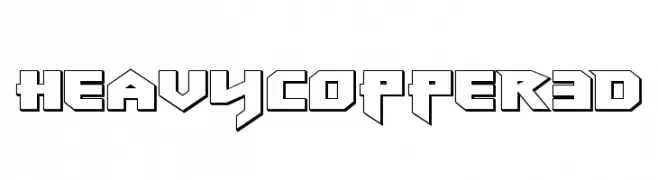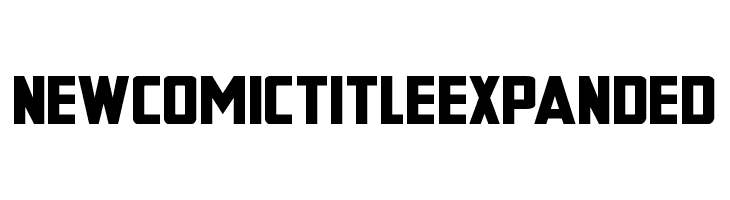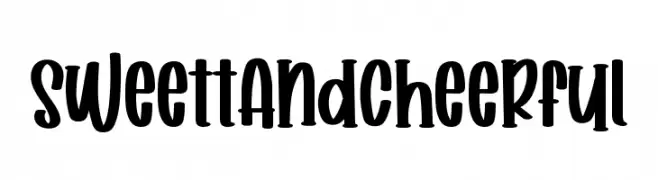
A bold, rounded typeface with a playful and friendly style.
A playful, dripping style font with a whimsical and decorative appearance.
A playful, bold font with rounded, whimsical characters.
A playful, bold font with rounded, bubbly characters.
A bold, expressive handwritten font with playful curves and a modern style.
A bold, playful font with rounded, hand-drawn style characters.
A playful, bold font with rounded, thick strokes and a whimsical touch.
A bold, bubbly font with a playful and whimsical style.
A bold, modern font with a unique diagonal stripe pattern.
A modern, monospaced font with a clean and precise design.
A clean, geometric monospaced font ideal for technical and modern applications.
A bold, monospaced font with geometric lines and uniform character width.
A bold, brush-style font with dynamic, energetic strokes.
A bold, handwritten font with dynamic strokes and a lively, personal touch.
A lively handwritten script font with fluid, connected strokes.
A bold, expressive handwritten font with dynamic strokes and a modern calligraphy feel.
A playful, hand-drawn script font with bold, sweeping strokes.
A playful, wavy line font with a hand-drawn, organic style.
A bold, geometric font with dynamic, overlapping lines and a three-dimensional look.
A playful, splattered ink-style font with irregular edges.
A bold, geometric font with a three-dimensional effect and angular design.
A bold, decorative font with a textured pattern overlay, perfect for impactful display use.
A playful decorative font featuring unique animal face illustrations for each character.
A decorative font featuring abstract geometric shapes and symbols.
A bold, stencil-like font with characters inside black circles.
A bold, decorative font with a 3D effect and textured circle pattern.
A whimsical, nature-inspired font with decorative uppercase and clean, handwritten lowercase letters.
A whimsical, nature-inspired italic font with leaf-like details.
A flowing, cursive script font with elegant, interconnected characters.
A playful, hand-drawn font with rounded, informal characters.
Bold, outlined collegiate style ideal for impactful designs.
Bold, collegiate-style font with strong, blocky characters.
A bold, decorative font with characters in splatter-like shapes, offering a playful and artistic style.
常见问题 — 最新字体
现在大家都在用哪些新字体?
流行变化很快,但极简无衬线与个性鲜明的展示体当前更受欢迎, 特别适合移动端内容与现代品牌风格。
有哪些值得尝试的 5 款新字体?
近期热门包括 Frostine Snow - Personal Use, Frostine Snow Display - PUL, Mantis Rumble_PersonalUseOnly, SOLARY and Dunia Kita 它们在清晰度与个性之间取得平衡,适用于科技品牌、编辑排版与社媒视觉。